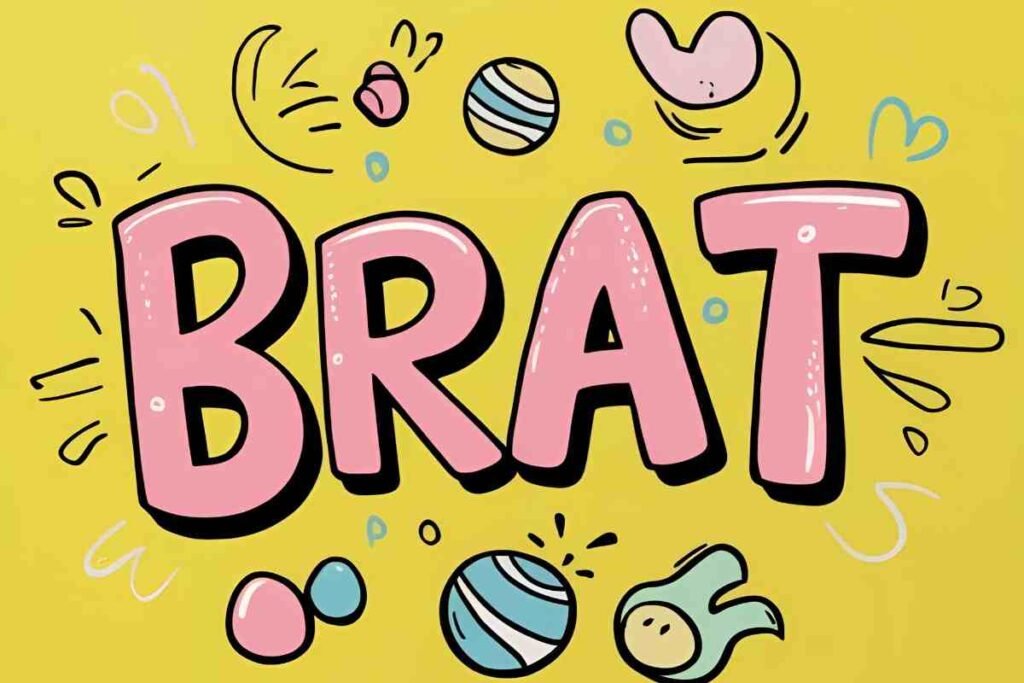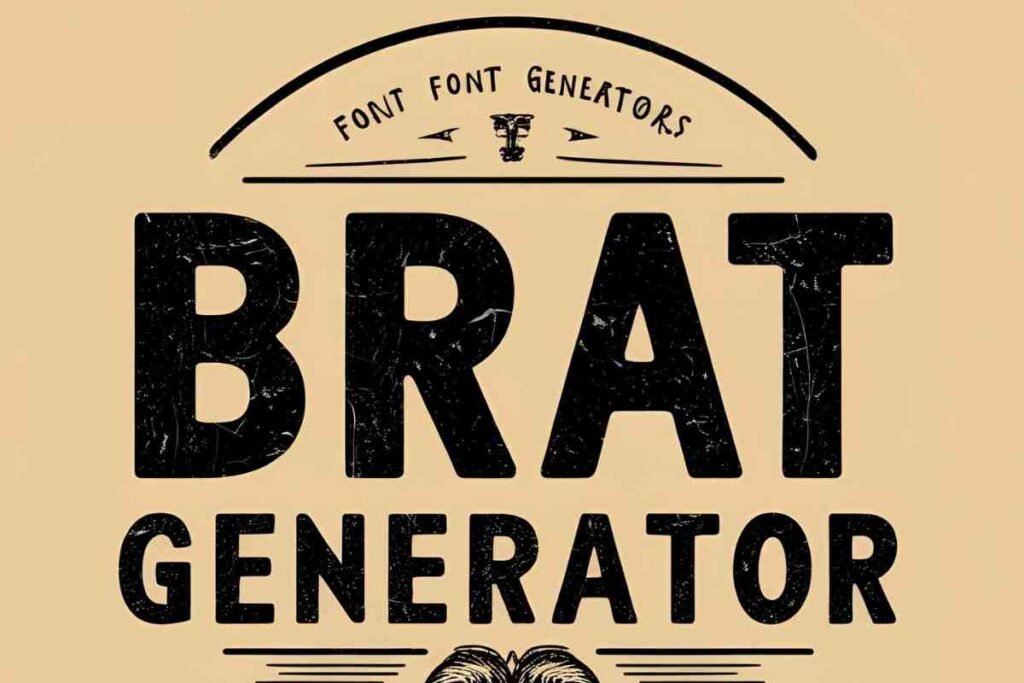
Typography plays a crucial role in digital design, branding, and social media presence. The way text appears can significantly impact engagement, making font choices more important than ever.
One of the latest trends in urban typography is the Brat font generator, an online tool that helps users create stylish font designs that reflect modern street culture and aesthetics. These fonts are characterized by their edgy, graffiti-like appearance, perfect for personal expression and brand identity.
Whether you’re looking for trendy font styles for your social media, website, or branding projects, a Brat font generator provides the perfect solution. In this guide, we’ll explore how this tool works, why it’s popular, and how you can use it to elevate your text designs.
What is a Brat font Generator?
A Brat Font is a unique typography style inspired by urban culture, graffiti art, and street-style fonts. These fonts often feature bold, artistic, and sometimes handwritten elements, allowing users to create modern font conversions that make their text stand out.
The sharp angles, irregular strokes, and unique letter formations give Brat Fonts a rebellious yet artistic appeal. This makes them a popular choice for content creators, social media influencers, and designers who want to add flair to their text while embracing an urban aesthetic.
Whether you’re aiming for an edgy, youthful, or streetwear-inspired vibe, Brat Fonts are the perfect tool for self-expression.
How to Use a Brat font Generator for Social Media and Branding
Using a Brat font generatoris simple and requires no technical skills. First, visit an online font generator that supports Brat Fonts. Many free online font generators allow you to create custom text easily.
Enter your desired text into the input field and browse through the available Brat Font Styles. Some tools even offer customization features such as color adjustments, text size modifications, and special effects like shadows or outlines.
Once you are satisfied with the result, you can copy the stylized text and paste it into your social media posts, website, or branding materials. By incorporating these fonts into your digital presence, you can create eye-catching designs that stand out among competitors.
Brat Fonts vs. Graffiti Fonts – What’s the Difference?
While both Brat Fonts and Graffiti Fonts share an urban aesthetic, they have distinct characteristics. Brat font generator are typically more refined, modern, and often handwritten with a stylish touch, making them ideal for branding and personal design projects.
Graffiti Fonts, on the other hand, are bold, irregular, and closely mimic traditional street graffiti art. Graffiti fonts often feature exaggerated spray-painted effects, dripping ink, or overlapping strokes, while Brat Fonts focus more on stylish elegance with an urban twist.
Understanding these differences helps users choose the best typography generator for their specific needs, whether for a graffiti-style design or a sleek, urban branding approach.
Why Stylish Fonts Matter in Social Media and Design
Using stylish fonts can significantly impact how your content is perceived online. A well-chosen font enhances brand identity, making content more visually appealing and recognizable.
Unique fonts increase readability, ensuring your message is conveyed clearly while maintaining a distinct visual presence. A consistent font style strengthens brand identity, helping businesses and influencers establish a unique voice in the digital space.
Whether you’re posting on Instagram, Twitter, or Facebook, using trendy font styles makes your posts stand out, leading to higher engagement rates and increased interaction. Furthermore, distinctive text encourages more shares and comments, helping your content gain traction in competitive digital spaces.
How can I customize my Brat Font text?
Many fancy text editors offer customization options like color, size, and special effects.
Are Brat Fonts and Graffiti Fonts the same?
No, while both are urban typography styles, Brat Fonts are more refined, while Graffiti Fonts mimic traditional street graffiti.